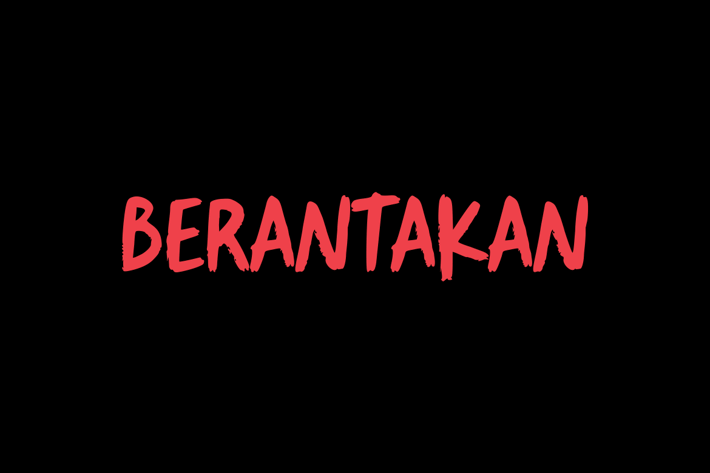
Berantakan Brush Typeface
Berantakan is an urban style brush font, with a slightly sticky brush type so that the brush splash feels more minimalist. This font is also conceptualized with a slightly messy style seen at the high and low levels of the character.